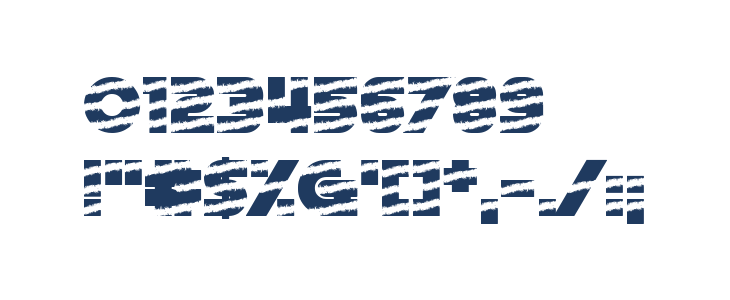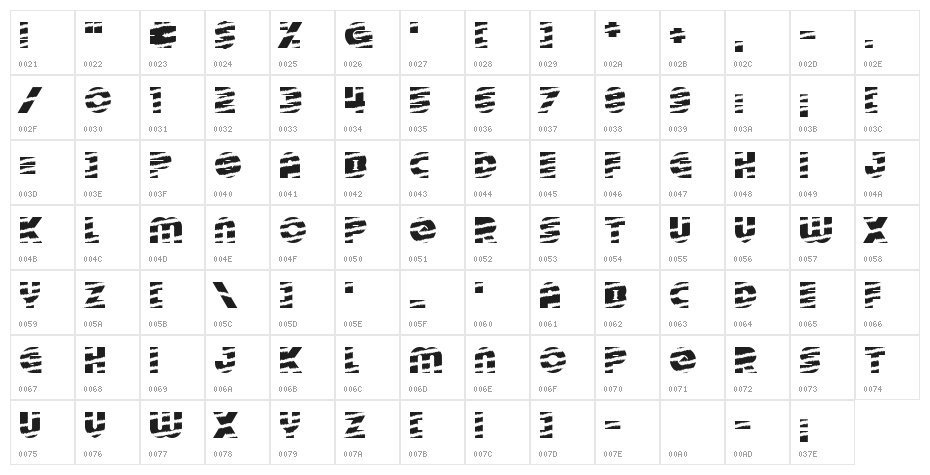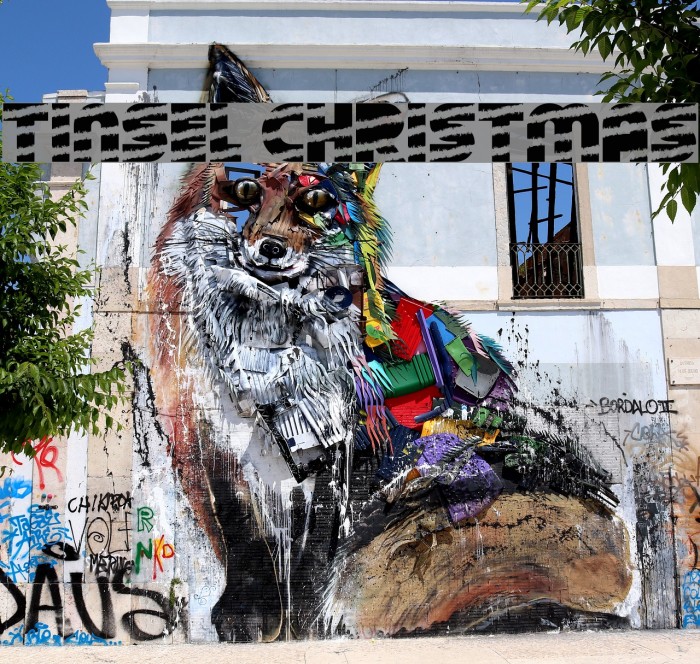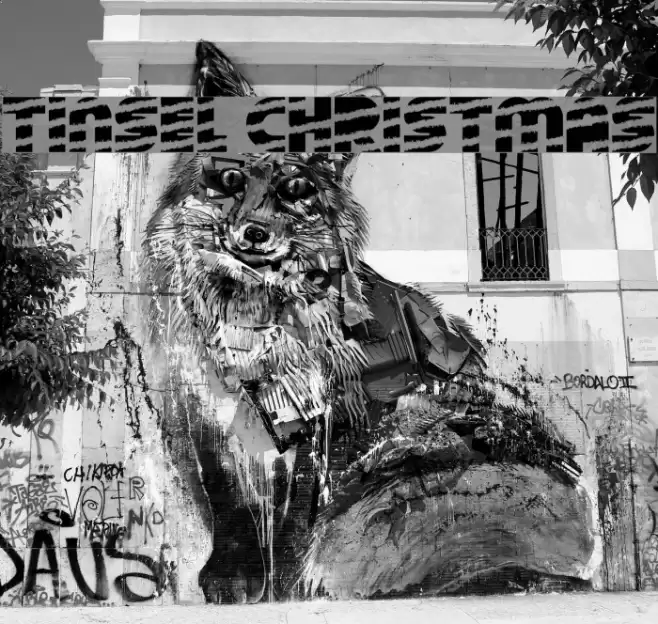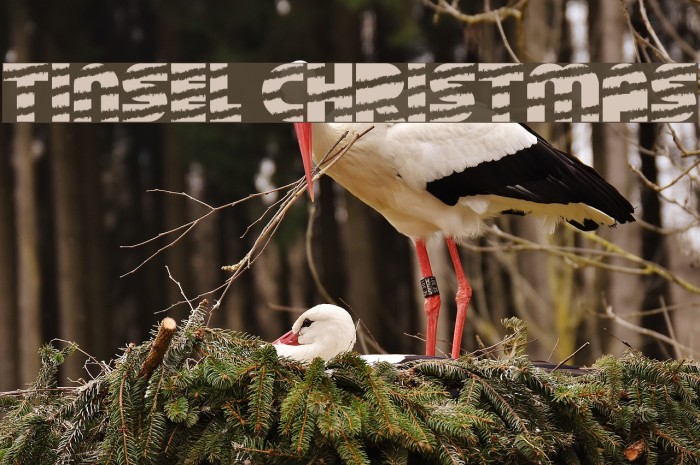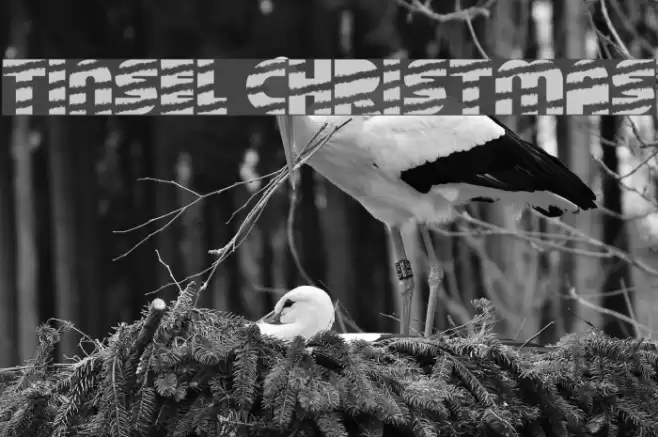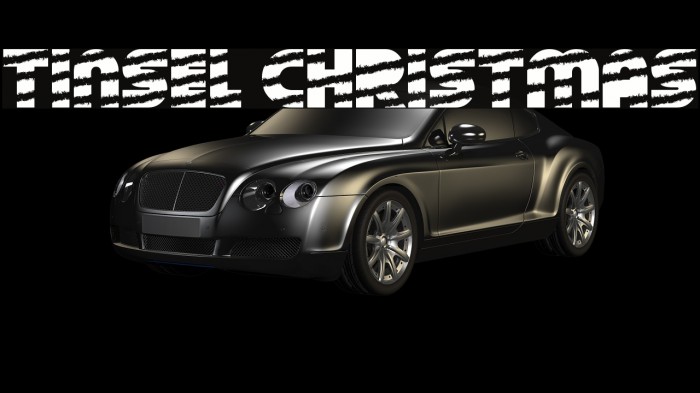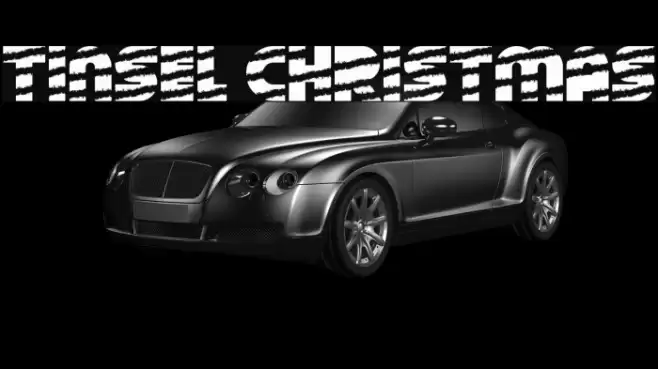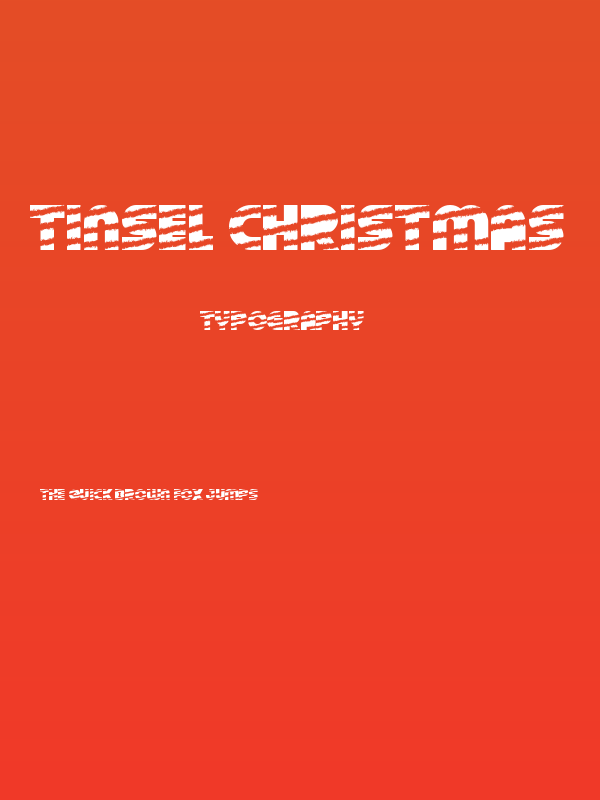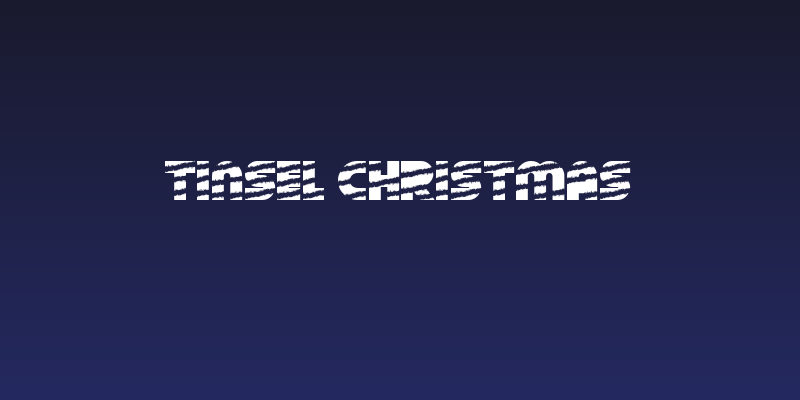
Tinsel Christmas Font
Tinsel Christmas Description
This font features a bold and dynamic design with a distressed, textured appearance reminiscent of tinsel or shredded paper. The characters are wide and have a strong presence, making them ideal for attention-grabbing designs. The uppercase and lowercase letters maintain a consistent style, with the uppercase being slightly more pronounced. Numbers and special characters follow the same aesthetic, ensuring uniformity across all text elements. The font's unique style makes it suitable for festive or themed projects, adding a playful yet edgy touch to any design.
| Proposed Projects | Ideal for holiday-themed designs, posters, banners, and creative branding projects. |